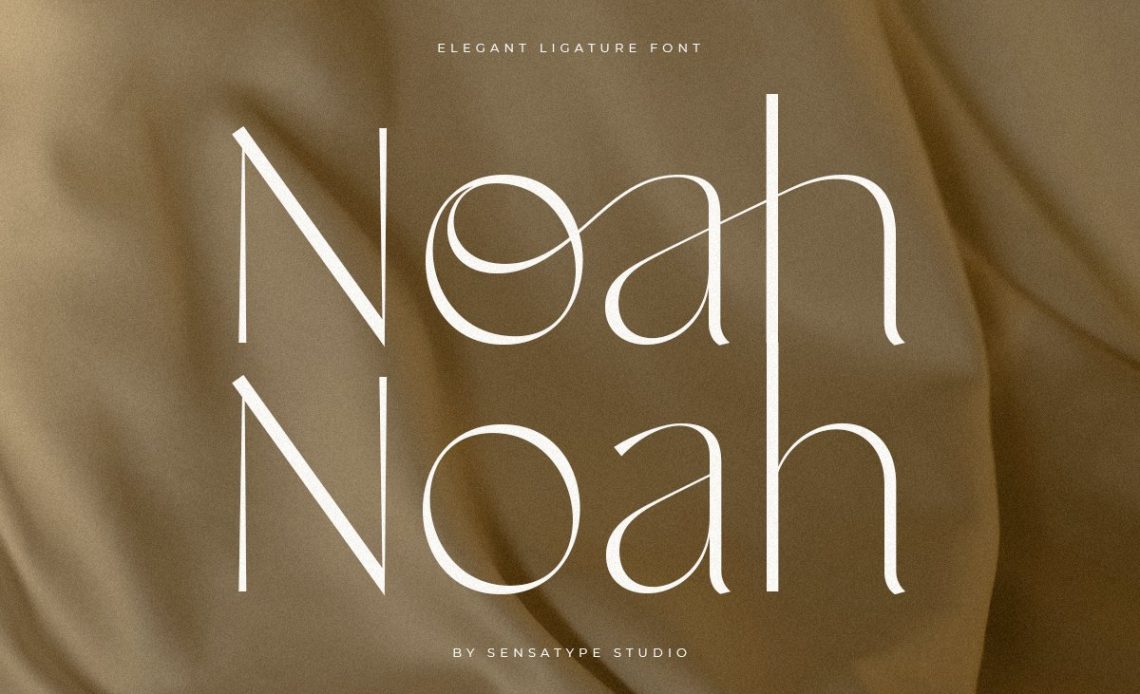
Introducing Noah - Elegant Ligature Font, the perfect choice for all your branding needs. Created by the talented Muhammad Zamroni Hamzah, this serif font is the best font for calling cards, adding a touch of elegance and sophistication to your designs.
With its unique ligatures and extra characters, Noah font is the ultimate solution for designers and product owners who want to elevate their brand and make it stand out from the crowd. Whether you're working on a logo, packaging, or any other creative project, this font will help you achieve a stylish and modern look.
Noah Elegant Ligature Font offers a wide range of options to unleash your creativity. With a combination of alternate characters and ligatures, you can create unlimited variations that perfectly match your vision. The font comes in three different file formats (.otf, .ttf, .woff), ensuring compatibility across various design software.
Need some inspiration? We've got you covered. Our font preview showcases the endless possibilities that Noah font offers, giving you a glimpse of what you can achieve with this versatile typeface. From lowercase to uppercase characters, every detail has been carefully crafted to ensure a seamless and visually pleasing experience.